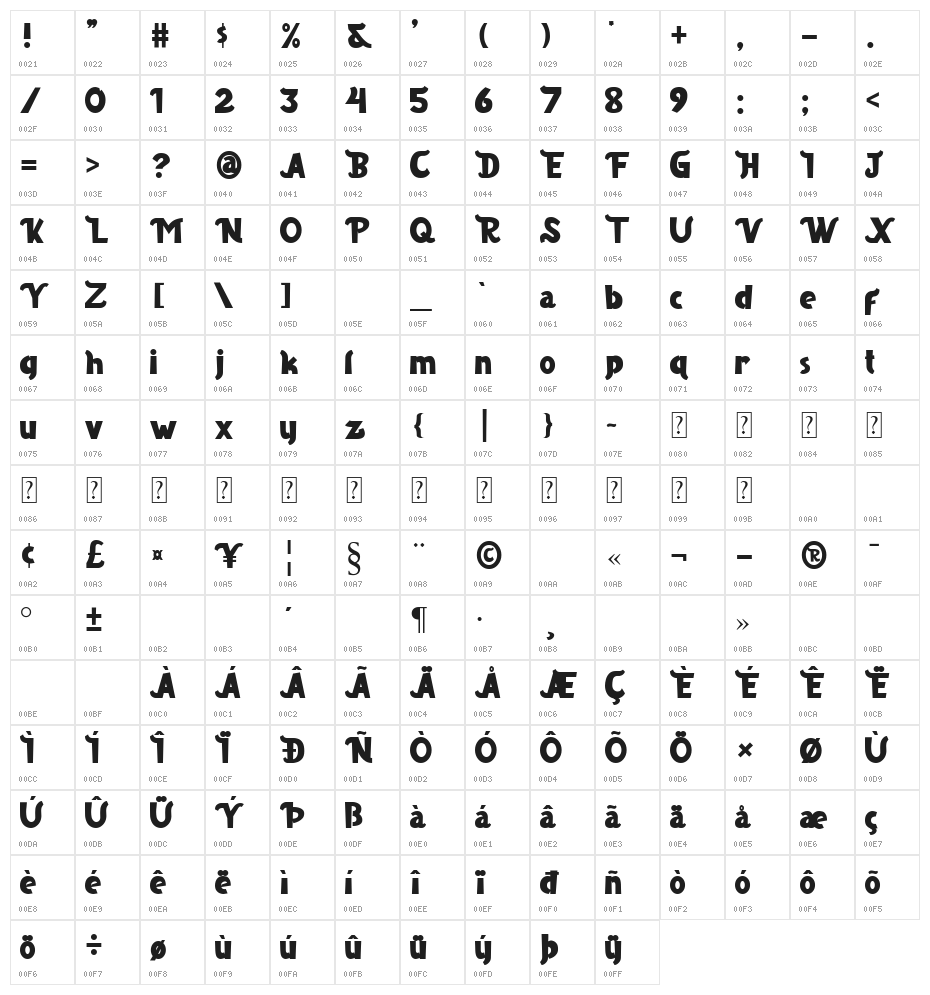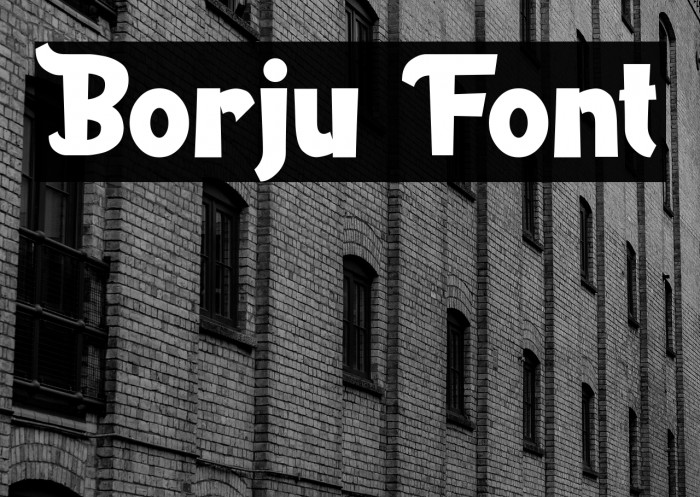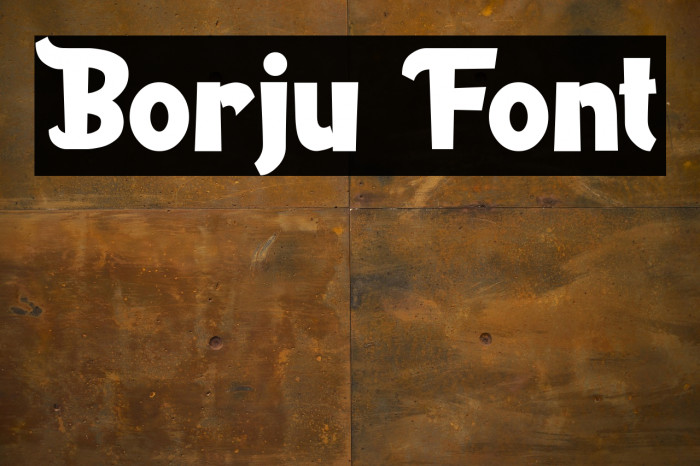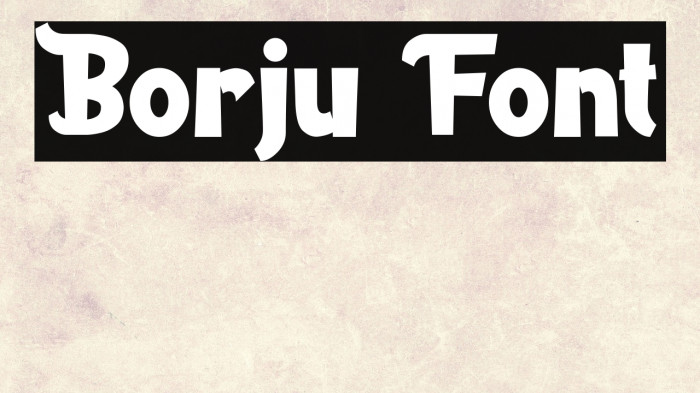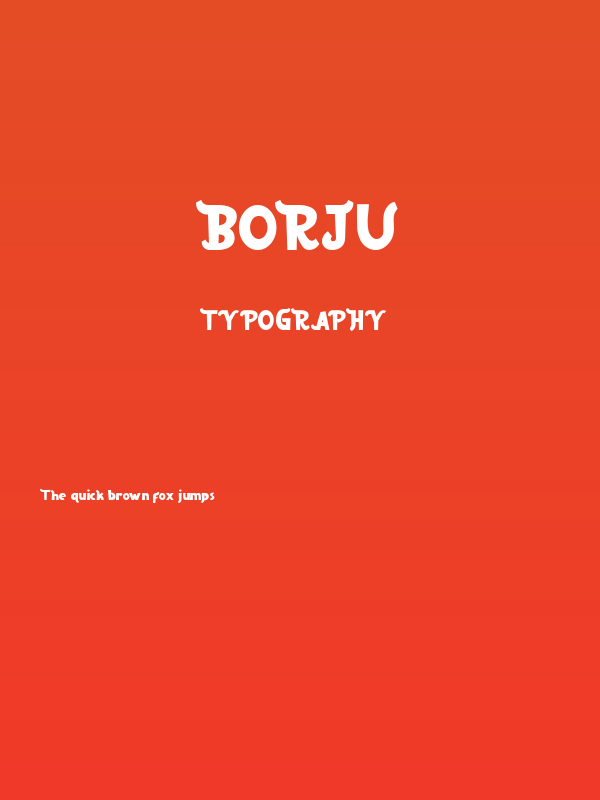
Borju Font
Borju Description
This font features a bold and playful design with a unique blend of curves and sharp edges. The uppercase letters are characterized by their strong presence and slightly exaggerated serifs, giving them a distinctive look. The lowercase letters maintain a consistent style, with rounded forms and a friendly appearance. Numbers are bold and easily readable, while the special characters add a touch of whimsy with their varied shapes. Overall, this font combines elements of traditional serif styles with a modern twist, making it suitable for creative and eye-catching designs.